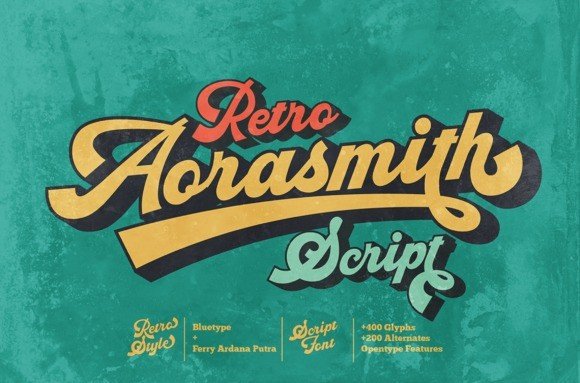
Aorasmith Script Font
Aorasmith Script Font is a sweet and friendly handwritten script font. This font will look outstanding in any context, whether it’s being used on busy backgrounds or as a standalone headline. Aorasmith is designed and shared by bluetype. This typeface is a spectacular display font. Use this typeface and you will make a retro design with ease!
This font is perfect for logo design, t-shirt, vintage and retro badge, vintage quotes, branding, packaging, quote and more.